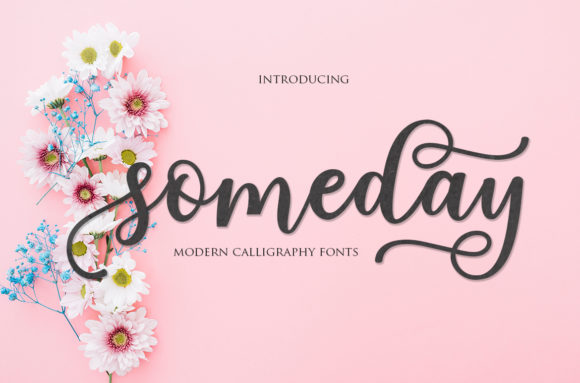
Download Someday Script Font for free! Created by Mrletters and published by Shaya Kern, this script font family is perfect for adding a unique touch to your designs.